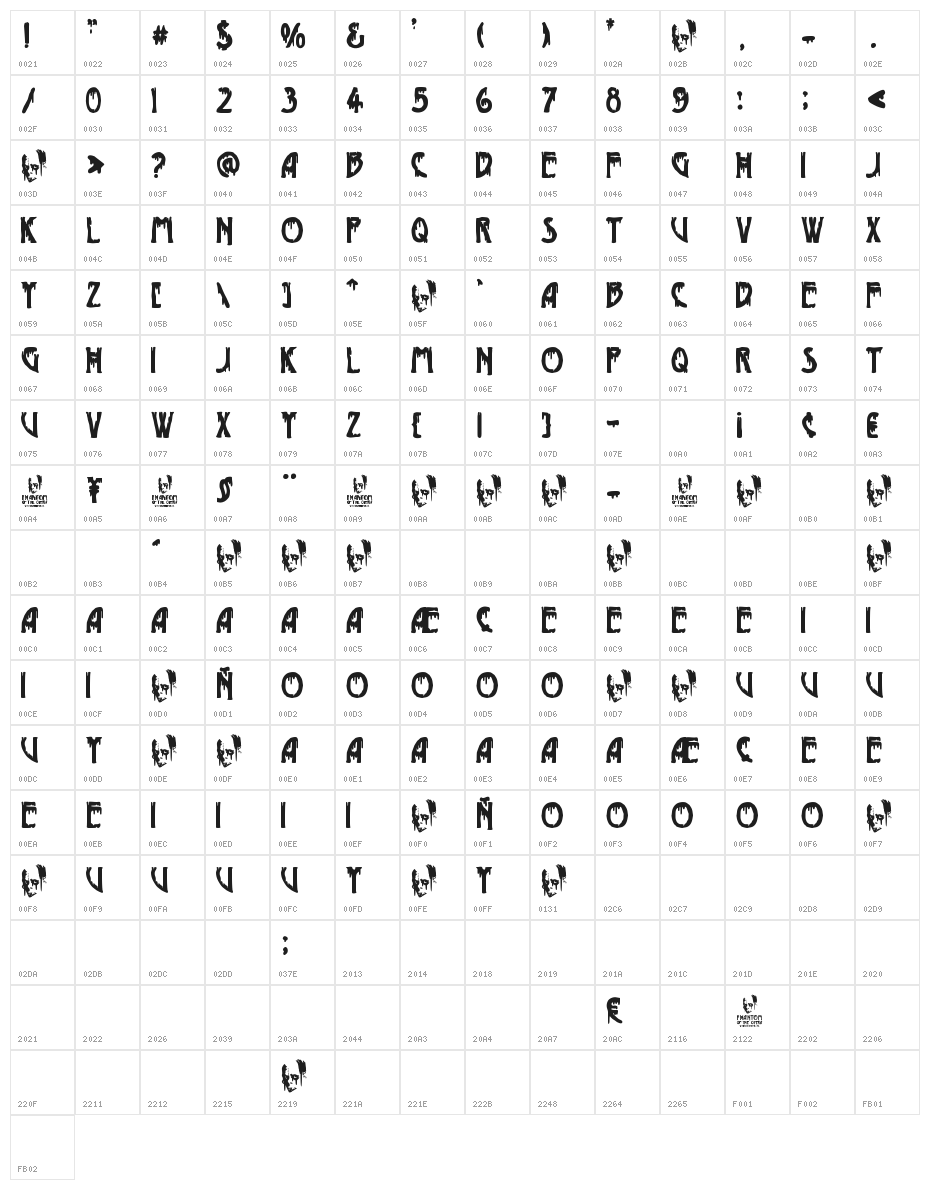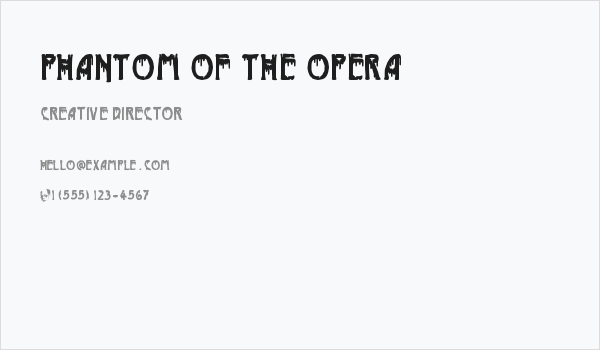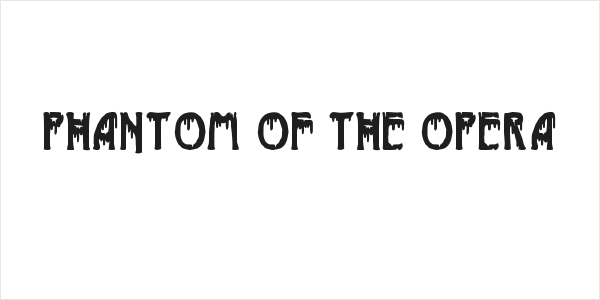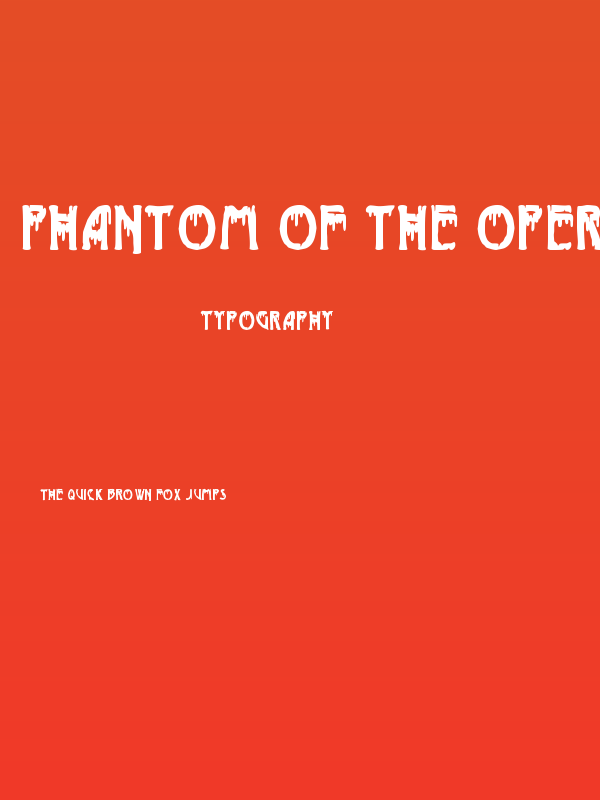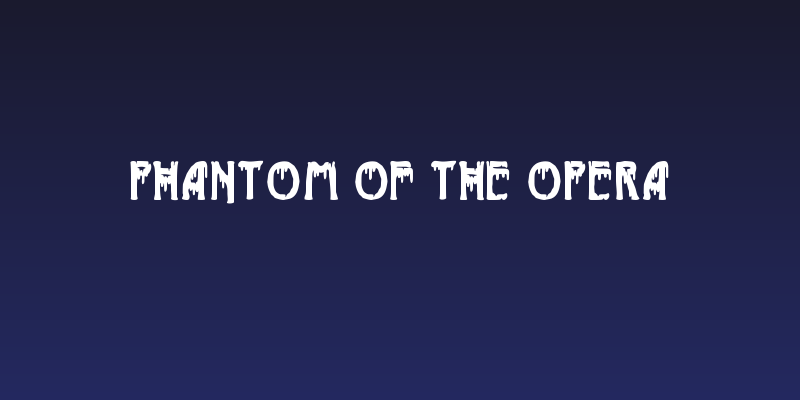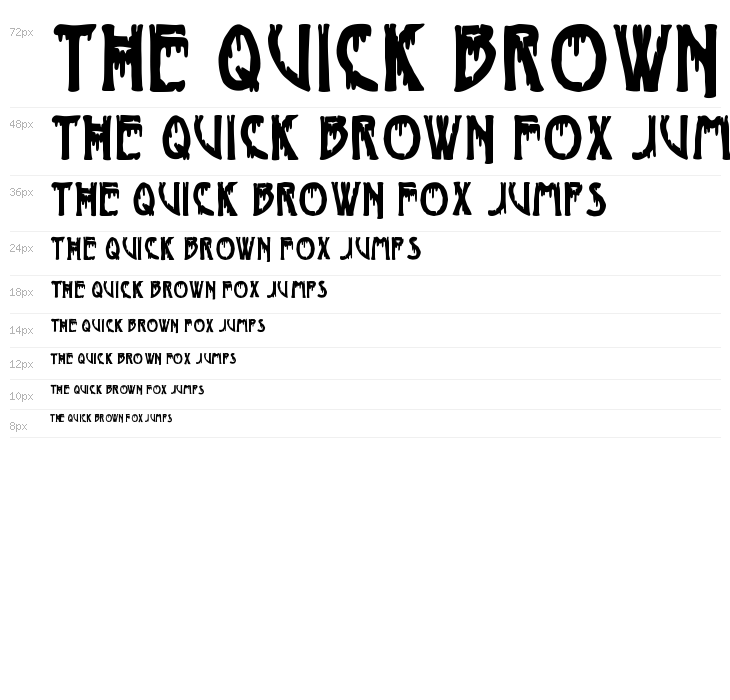
Phantom of the Opera Font
Phantom of the Opera Description
This font features a dramatic and theatrical style, reminiscent of classic horror and gothic themes. The characters are bold and have a dripping effect, giving the impression of melting or bleeding, which enhances its eerie and mysterious appearance. The uppercase and lowercase letters maintain a consistent design, with exaggerated curves and sharp edges that add to the overall dramatic flair. The numerals and special characters follow the same aesthetic, ensuring a cohesive look across all text elements. This font is perfect for creating a spooky or theatrical atmosphere, making it ideal for Halloween-themed projects or anything requiring a touch of the macabre.
| Overall Style | Gothic, Theatrical, Horror |
| Use Case | Headlines, Posters, Themed Events |
| Proposed Projects | Ideal for Halloween invitations, horror movie posters, themed events, and gothic-style branding. |